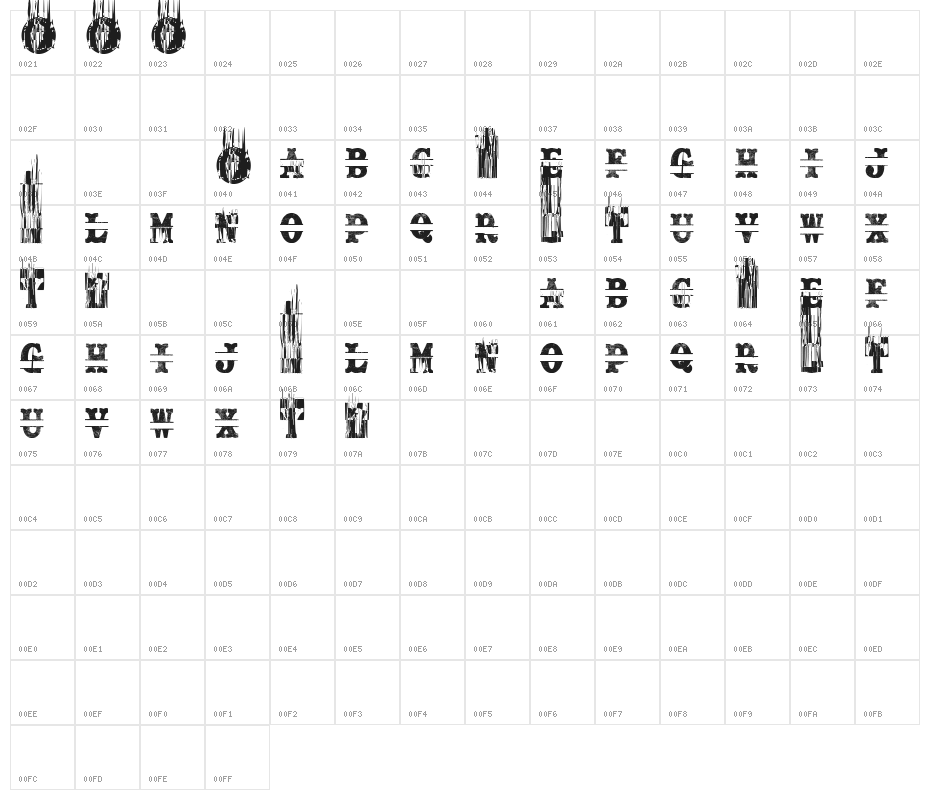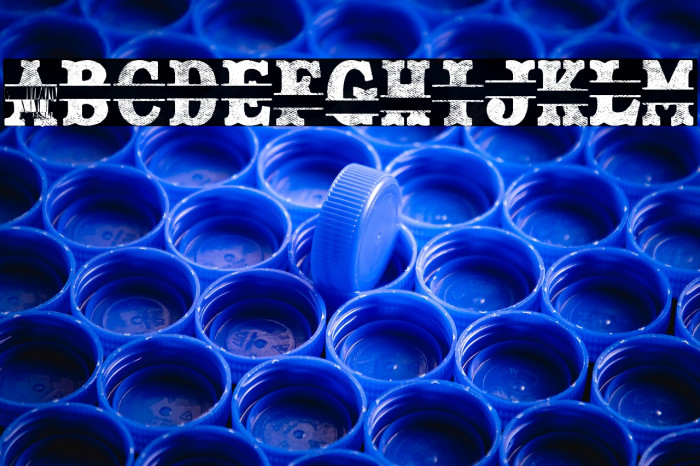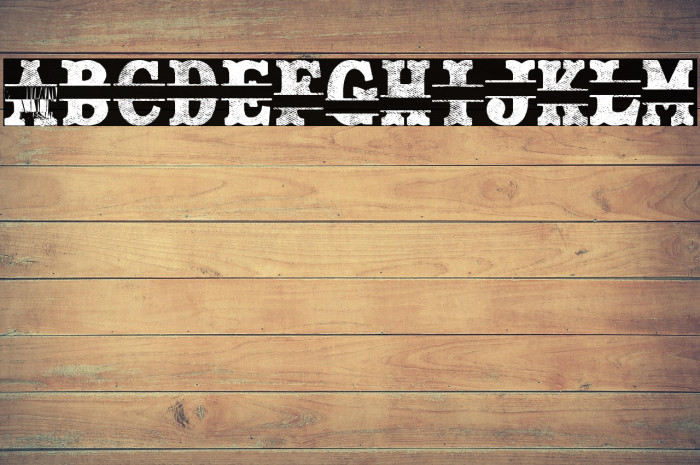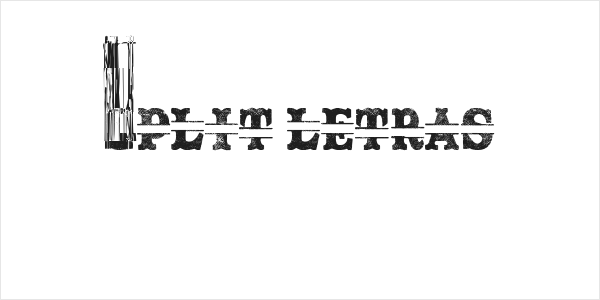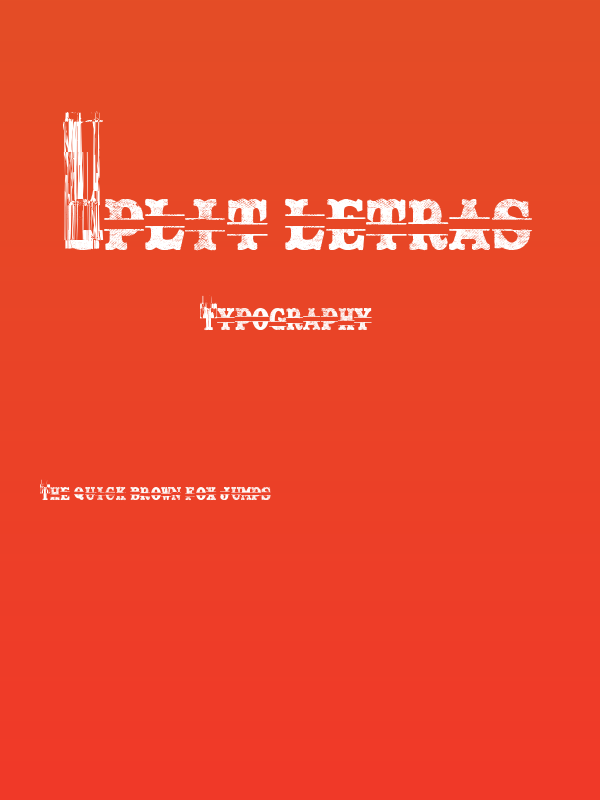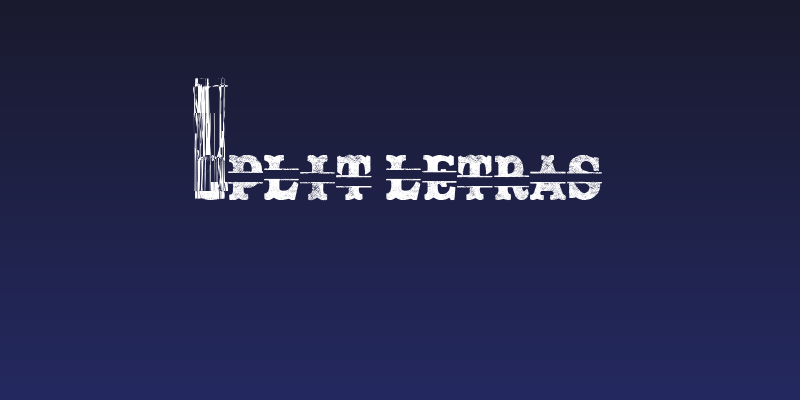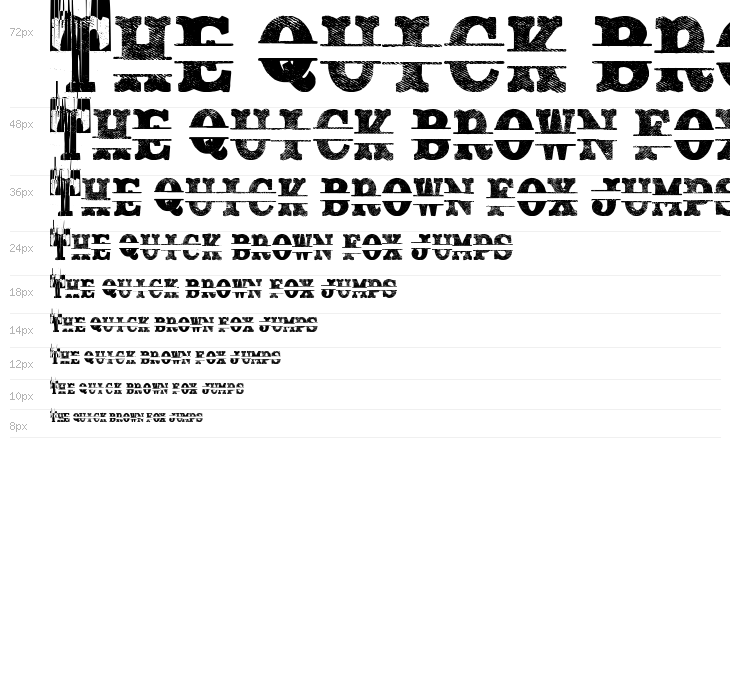
Split Letras Font
Split Letras Description
This font features a bold and distressed style with a unique split effect running horizontally through each character. The letters have a textured appearance, reminiscent of vintage printing techniques, adding a rugged and industrial feel. The uppercase and lowercase letters maintain a consistent design, with the split line creating a striking visual impact. The numerals and special characters follow the same aesthetic, ensuring uniformity across the typeface. This font is ideal for projects that require a bold statement with a touch of retro flair.
Overall StyleVintage, Industrial
Use CaseHeadlines, Logos, Posters
Proposed ProjectsIdeal for poster designs, album covers, branding projects, and any creative work that requires a bold, vintage-inspired aesthetic.